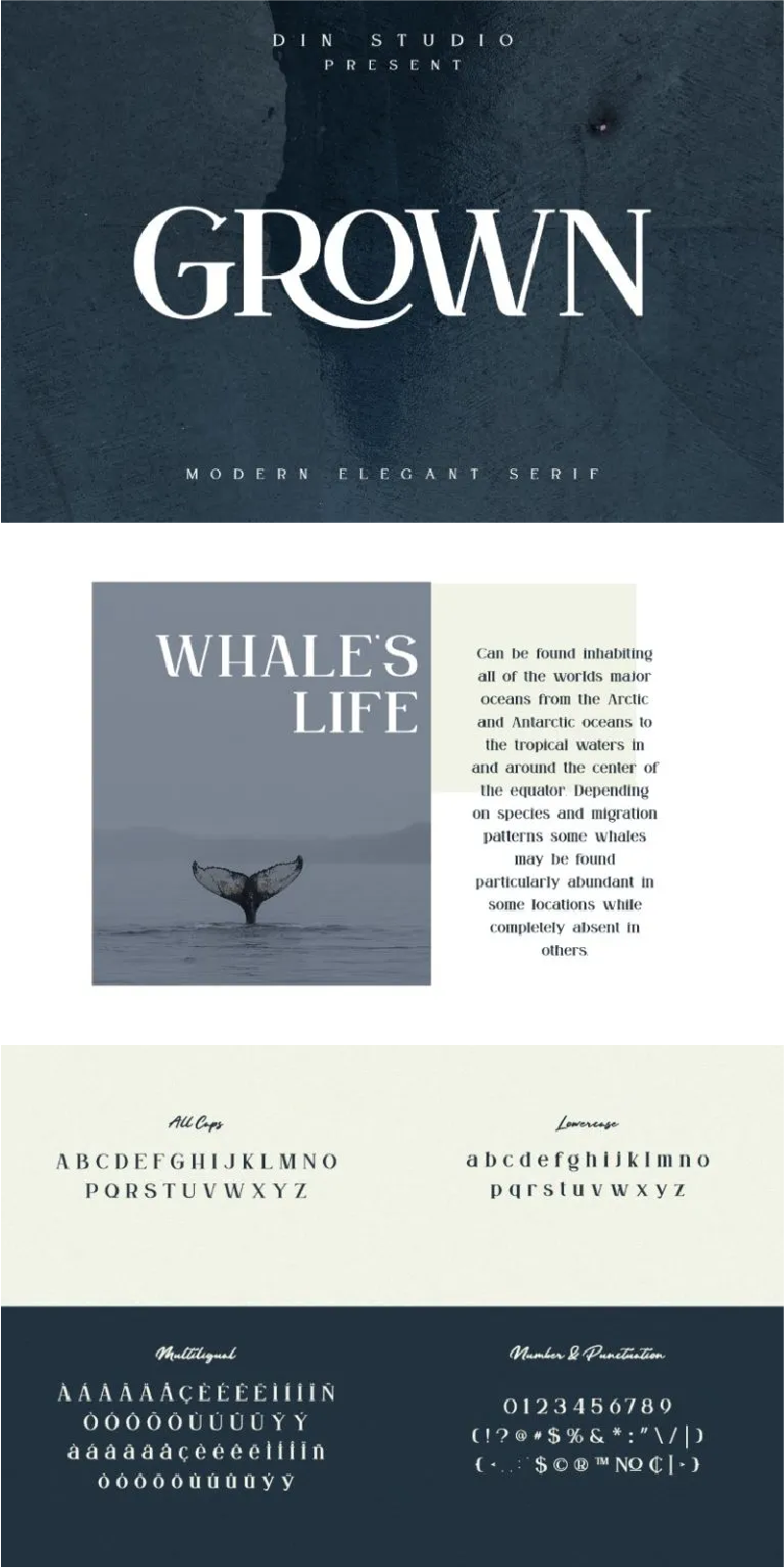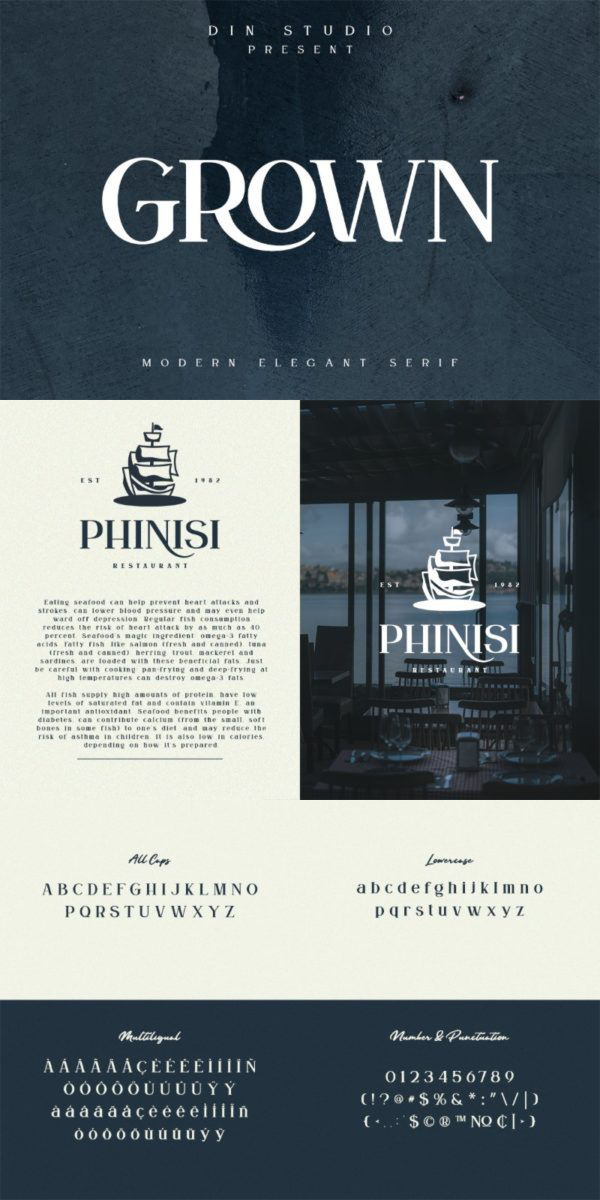
Grown Font
About Grown
The GROWN font is a modern and clean display (Serif) font. Create from our talented font designer. The design of typeface will make your design more beautiful and inspiring. This font will suitable for any project, like branding, print template, logo and etc.
Features :
- Accents (Multilingual characters)
- 18 Ligatures
- 19 Alternates
- Numerals and Punctuation (OpenType Standard)